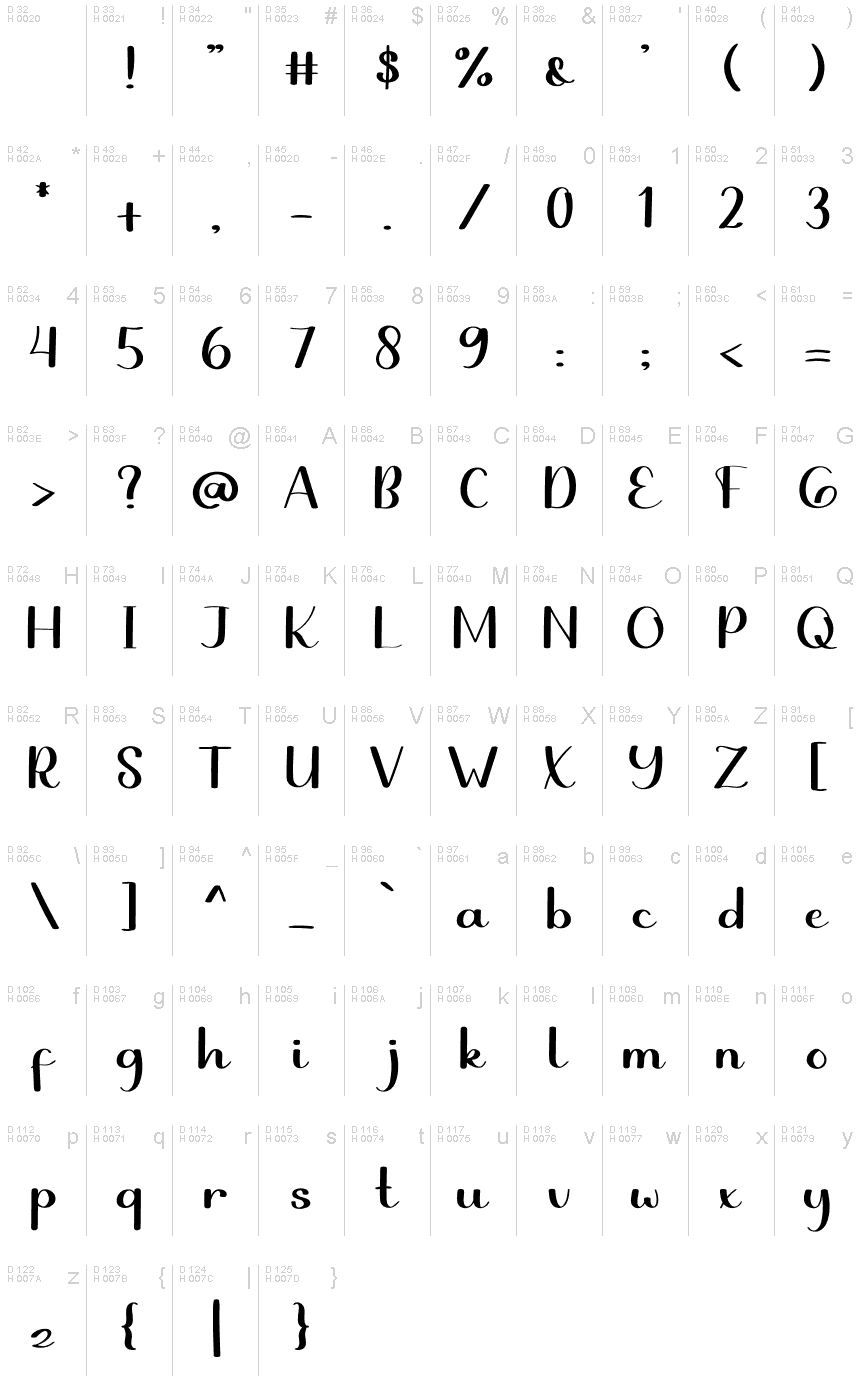
November
November, the semi-expanded handwritten font designed by Erik Studio, is a versatile and unique typeface suitable for an array of projects. Its whimsical yet legible style lends itself perfectly to invitations, greeting cards, and wedding stationery. It can also add a touch of personality to branding materials such as logos and packaging designs. November's semi-expanded width makes it an ideal choice for headlines and titles, ensuring that your message stands out while remaining easy to read. Whether you're crafting a heartfelt message or building your brand identity, November is the perfect addition to your creative toolkit.